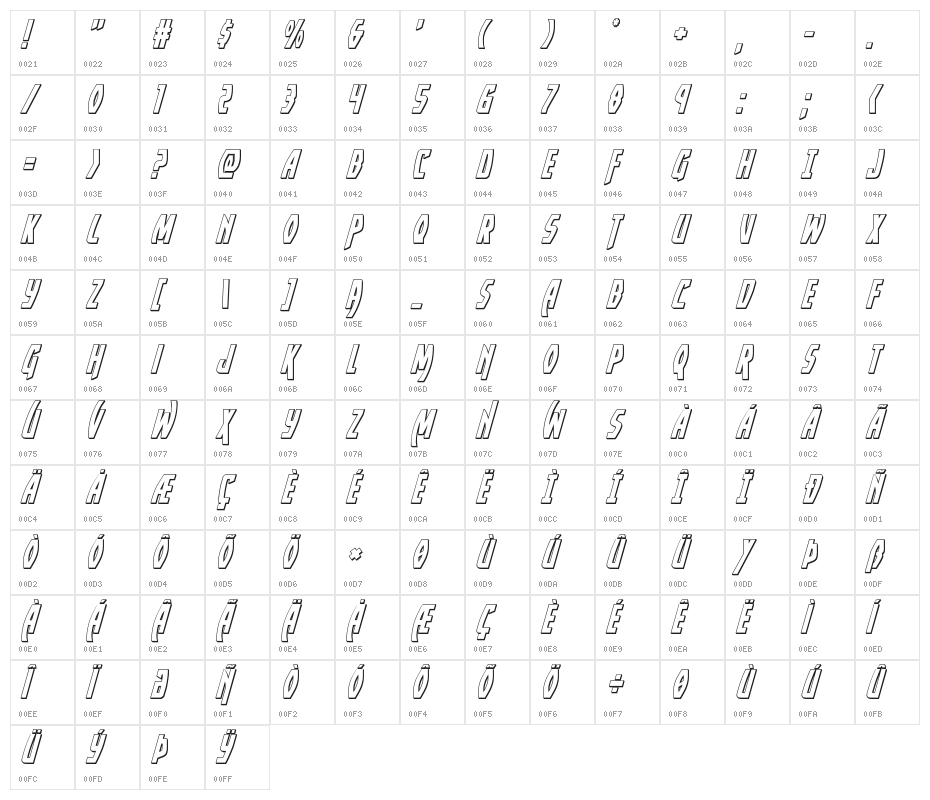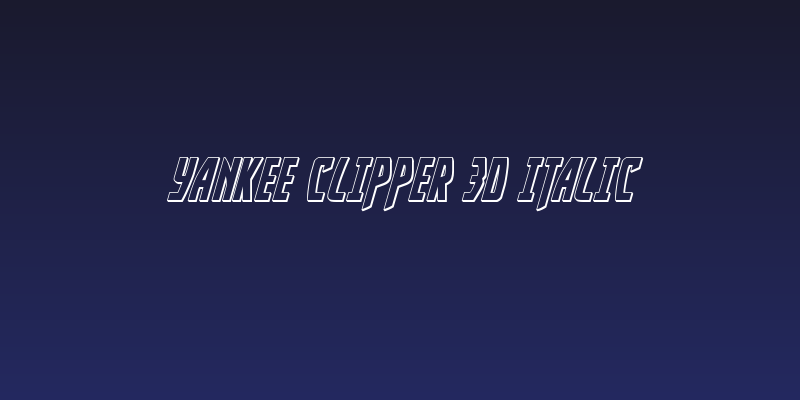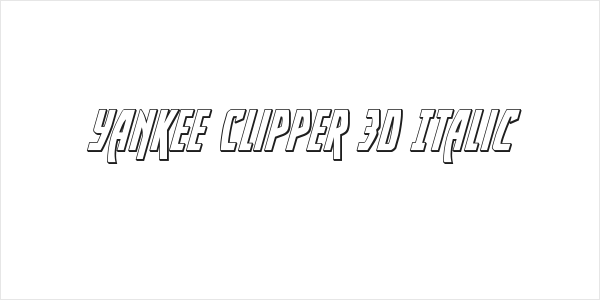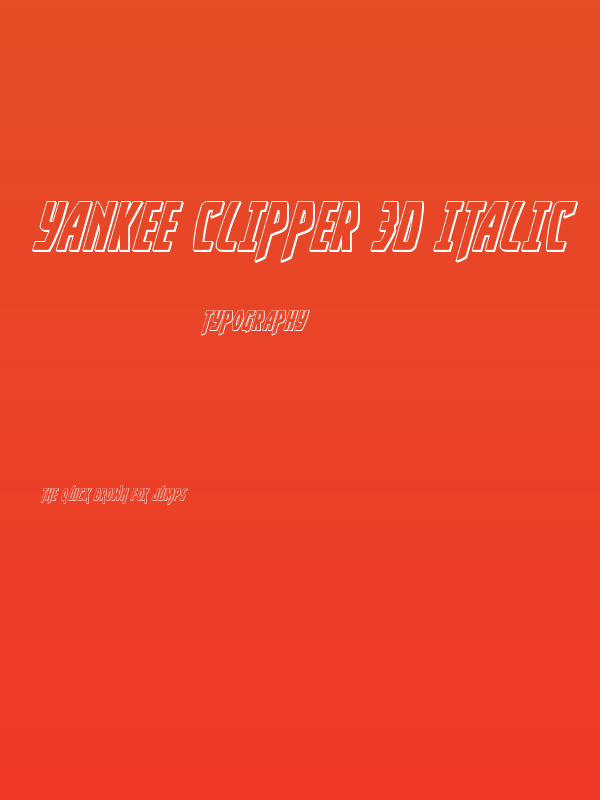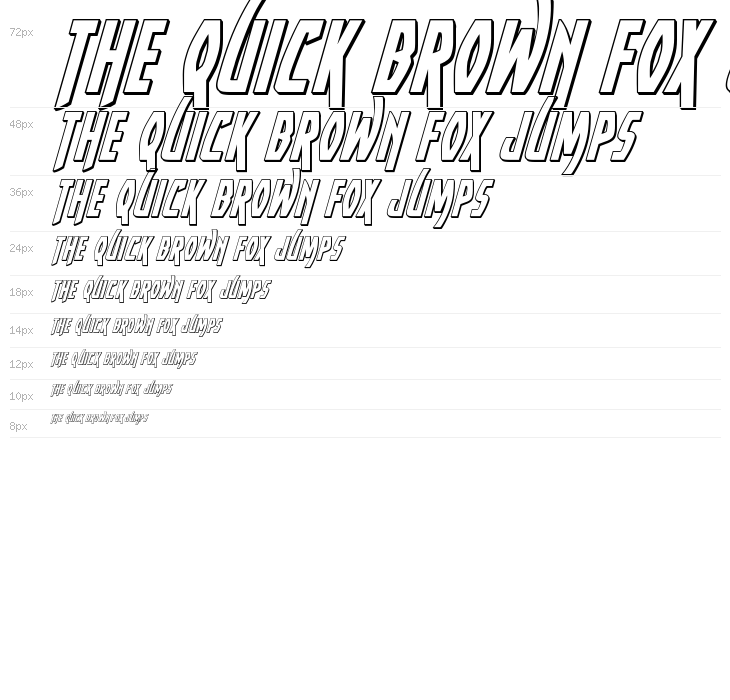
Yankee Clipper 3D Italic Font
Yankee Clipper 3D Italic Description
This font features a bold, dynamic 3D effect with an italicized slant, giving it a sense of movement and energy. The characters are outlined, creating a striking visual impact that is both modern and eye-catching. The uppercase letters are prominent and angular, while the numbers and special characters maintain the same bold style. This font is ideal for projects that require a strong, attention-grabbing typeface with a contemporary flair.
| Proposed Projects | Ideal for posters, headlines, logos, and any design needing a bold, dynamic look. |